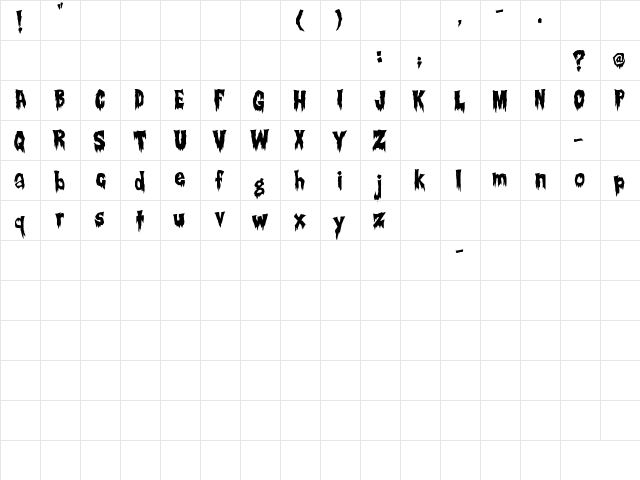
Creepsville Regular
| Designer | Big Tony O'Farrell |
Design Context for Creepsville Typeface
Creepsville carries an unsettling edge — its distorted letterforms are built to unsettle, perfectly suited to horror, Halloween, and dark creative work.
Ideal for Halloween projects, horror film titles, haunted house signage, and dark editorial design.
Font Pairing: Pair with a clean neutral sans-serif for body copy to let Creepsville's character lead without overwhelming the composition.
Pro Tip: Creepsville works best as a headline or focal element. Pair it against plain, neutral body text to amplify the contrast.